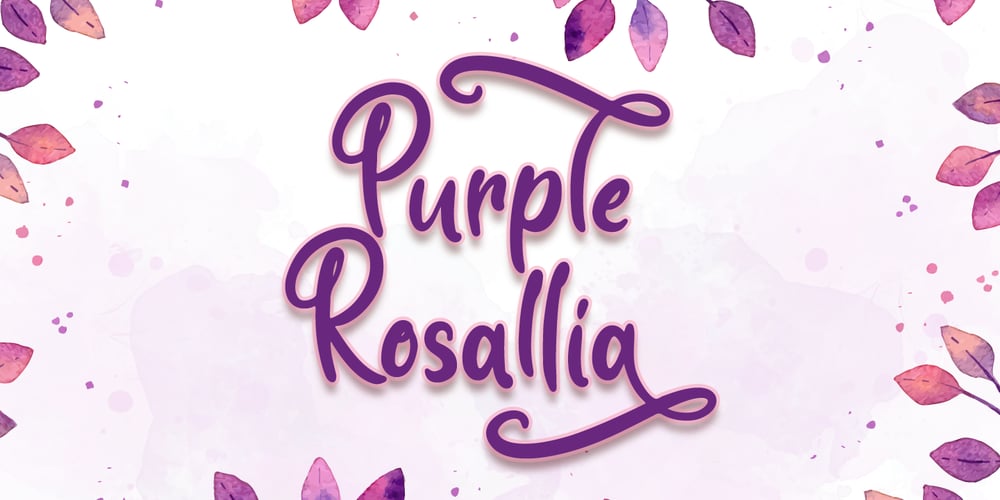
Purple Rosallia
Purple Rosallia font
Purple Rosallia Font Family was designed by Fadli Ramadhan Iskandar and published by Attype Studio. Purple Rosallia contains 1 styles and family package options. Purple Rosallia is a delicate lovely font with 2 stylistic set. Fall in love with its incredibly versatile style and use it to create spectacular designs!Purple Rosallia is perfect for branding, logo, invitation, stationery, social media post, product packaging, merchandise, blog design, game titles, cute style design, Book/Cover Title and more.What’s Included :- Beginning & Ending Swash- Multilingual Support